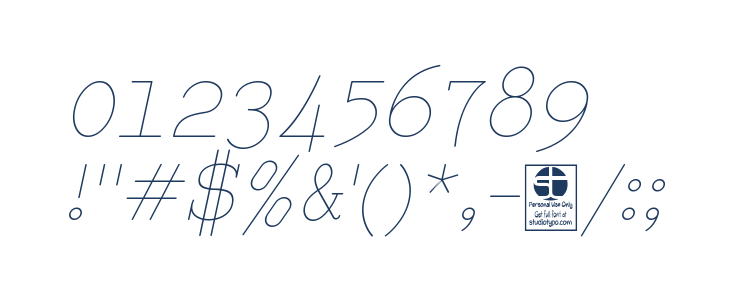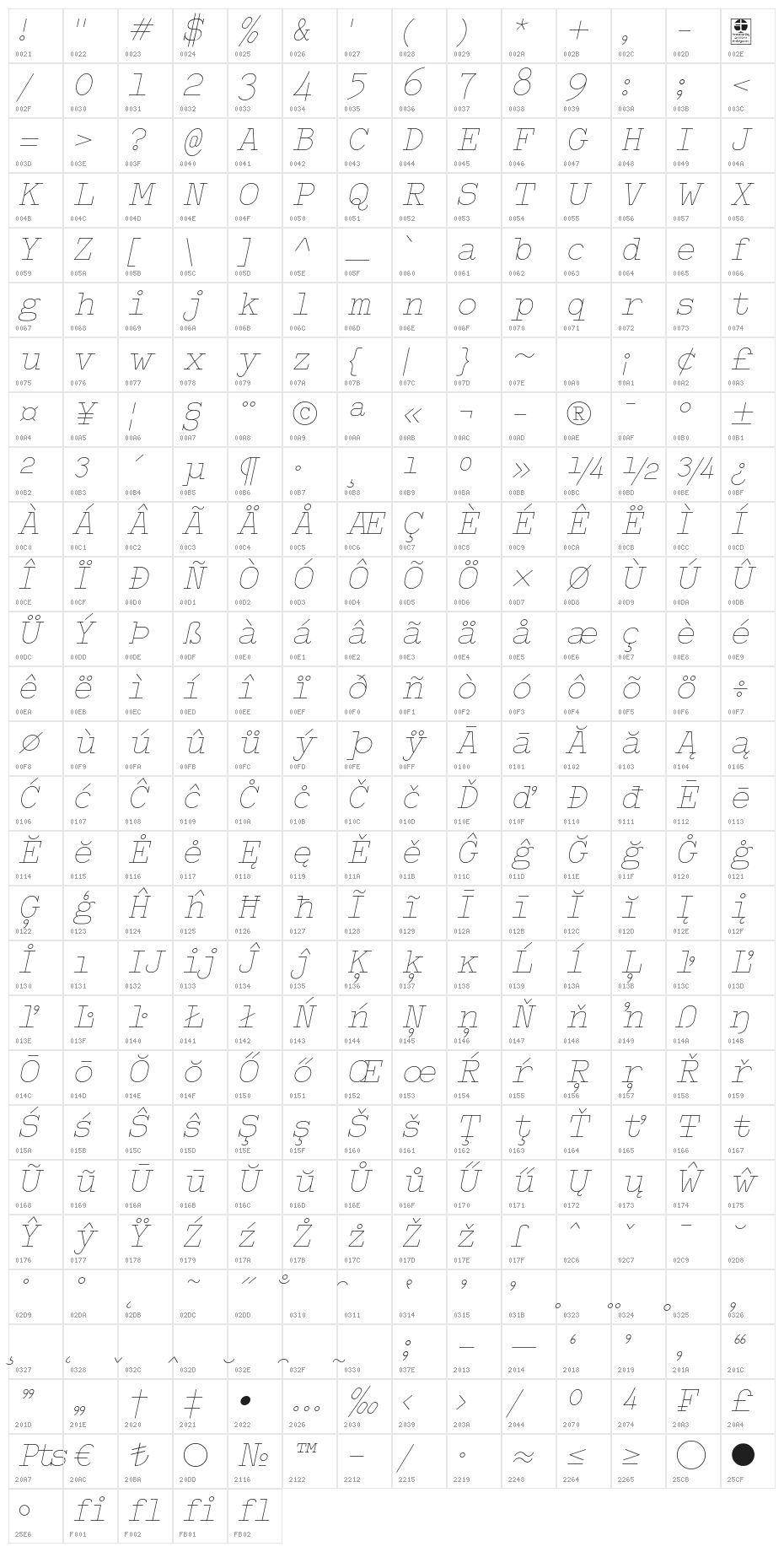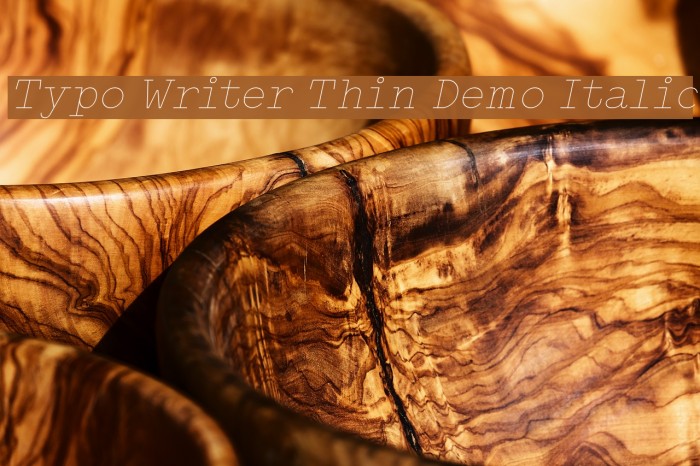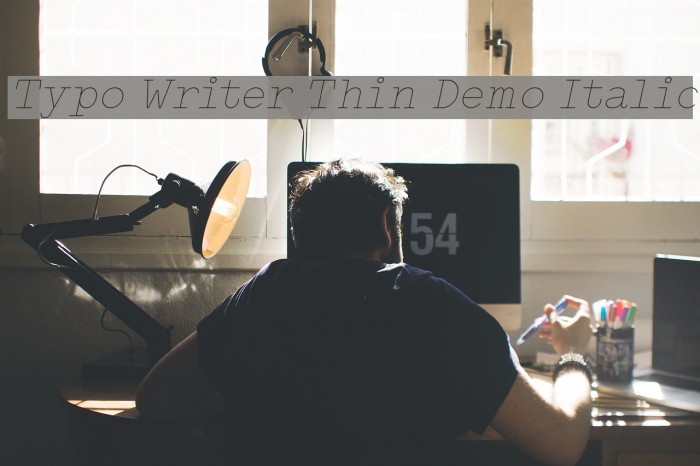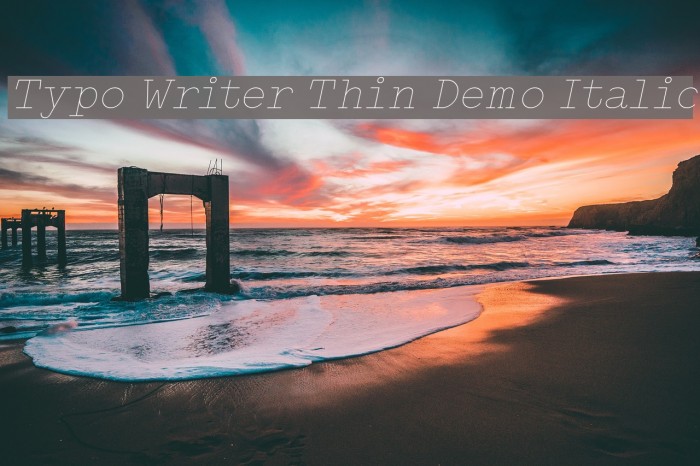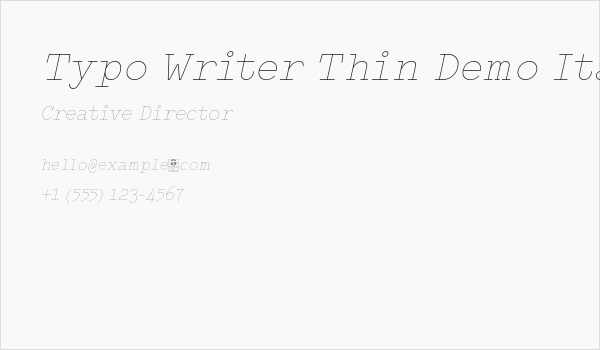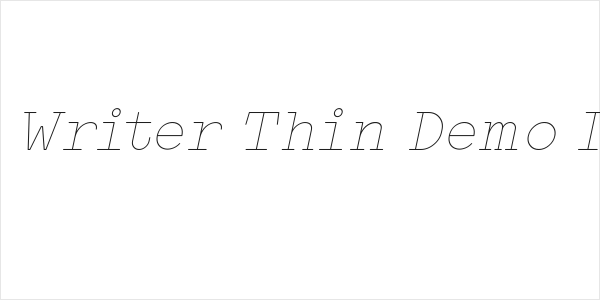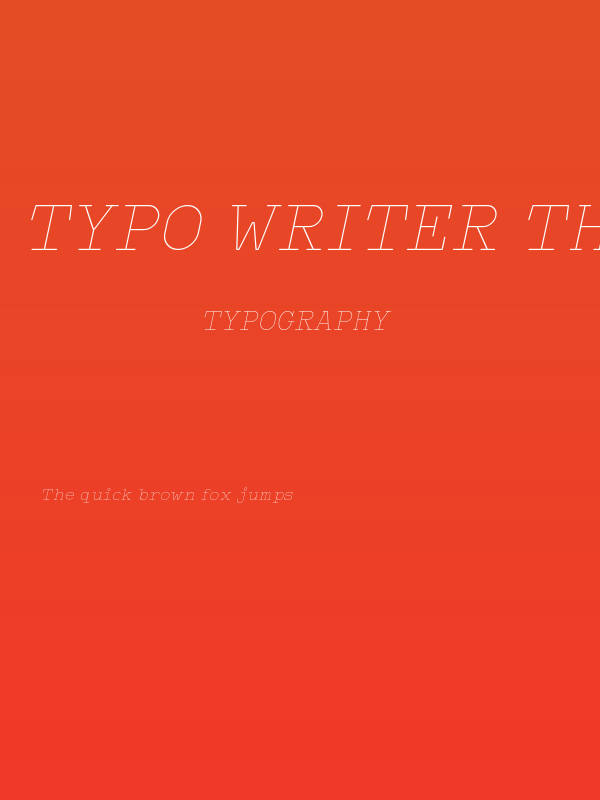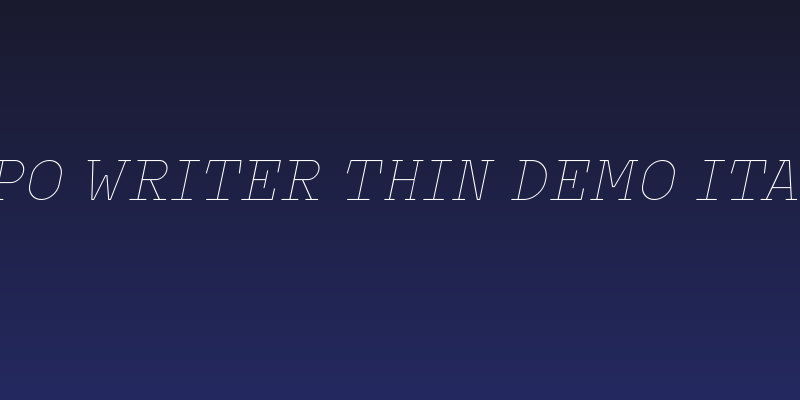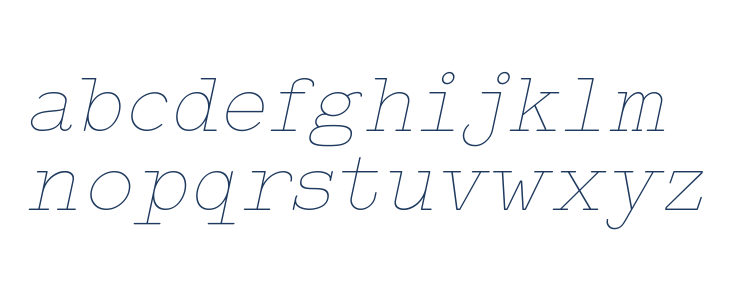
Typo Writer Thin Demo Italic Font
Typo Writer Thin Demo Italic Description
This font features a delicate and elegant design with thin, slanted characters that exude a sense of sophistication and modernity. The letters are crafted with a slight italic angle, giving them a dynamic and fluid appearance. The strokes are consistently thin, providing a light and airy feel. The uppercase and lowercase letters maintain a uniform style, with clean lines and minimal embellishments. Numbers and special characters are designed to match the overall aesthetic, ensuring a cohesive look across all text elements. This font is ideal for projects that require a touch of elegance and subtlety.